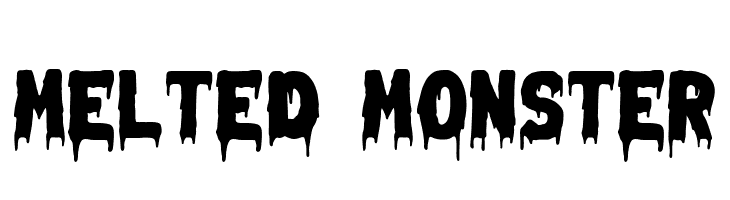
A modern, high-contrast font with elegant, slender characters.
A modern, italicized font with elongated, rounded characters.
A modern vintage font with rounded, elongated letterforms and consistent stroke width.
( Fonts by Jetsmax Studio )
A playful, melting-effect font with bold, rounded characters.
A bold, dripping font with a melting effect, perfect for creative and edgy designs.
( Fonts by Timur Type )
A bold, wavy, and playful font.
( Fonts by Rick Mueller )
A playful, melting-style decorative font with a bold, hand-drawn appearance.
( Fonts by Graham Meade - GemFonts )
A playful, hand-drawn font with a melted, organic appearance.